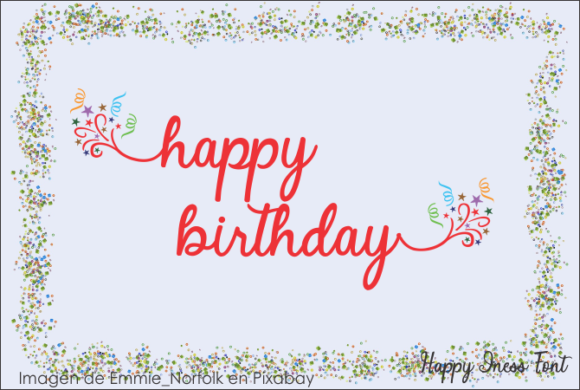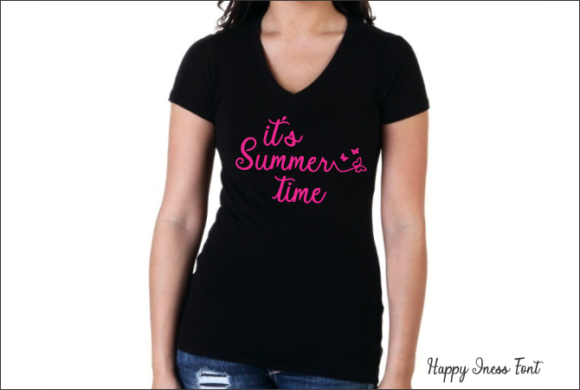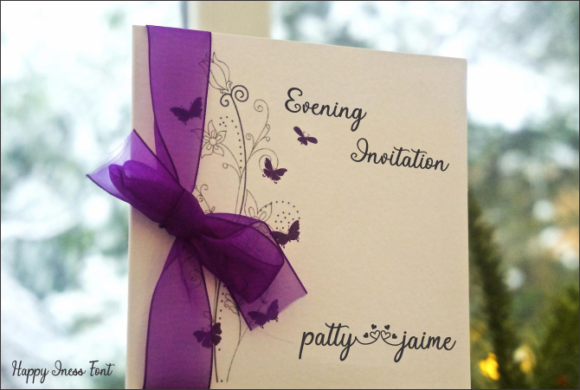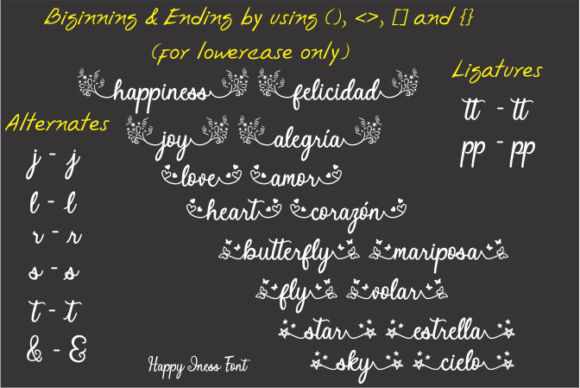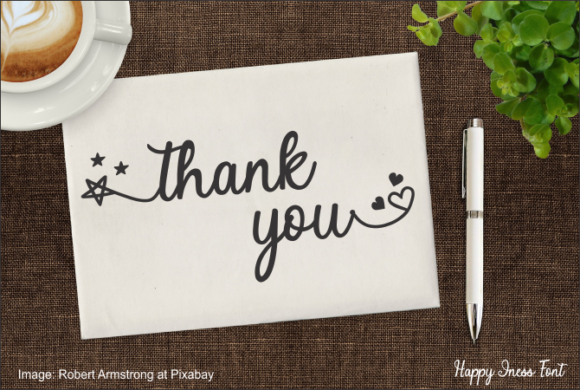
Introduction to Happy Iness Font
As you sit down to start a new creative project, the blank page staring back at you can be intimidating. But then, something sparks – a unique idea, a vibrant color palette, or a beautiful font that brings it all together. For many designers, finding the perfect font can be the difference between a good design and a great one. That’s where the Happy Iness Font comes in – a delicate, elegant, and flowing handwritten font that adds a touch of sophistication to any project.
With its beautiful and well-balanced characters, the Happy Iness Font is a valuable resource for designers looking to elevate their work. Whether you’re working on a free download, a high-end marketing campaign, or a personal creative project, this font is sure to impress. Its versatility makes it a great addition to any design arsenal, and its transparent background allows for seamless integration into any design.
Key Features of Happy Iness Font
- High-quality design: The Happy Iness Font is a unique and creative design resource, perfect for any project that requires a touch of elegance and sophistication.
- Transparent background: The Happy Iness Font features a transparent background, allowing for seamless integration with any design element or background.
- High-resolution design: The Happy Iness Font is designed at a high resolution, ensuring crisp and clear typography, even when scaled up or down.
- Unique characteristics: The font’s unique characteristics, including its custom letterforms and subtle flourishes, make it an excellent choice for designers looking to add a touch of personality to their creative projects.
- Perfect for design projects: The Happy Iness Font is ideal for use in design projects, such as logos, branding, and marketing materials, where a high-quality and unique font is essential.
Honest Review: Happy Iness Font
I recently had the chance to try out the Happy Iness Font for a creative project and I must say, it’s been a great addition to my design resource library. This font is a free download, which is always a plus when working on a budget.
- ✨ High-quality design: The Happy Iness Font is beautifully crafted with a clean and modern aesthetic that’s perfect for any project.
- ✨ Transparent background: The font’s transparent background makes it easy to place it over any image or color without worrying about a distracting background.
- ✨ Versatile: I’ve used the Happy Iness Font for a variety of projects, from social media graphics to web design, and it always looks great.
While the Happy Iness Font is a great addition to my design library, there are a few limitations to keep in mind:
- ⚠️ Limited font weights: The font only comes in a few weights, which can make it difficult to create a cohesive look if you need to use multiple font weights in a project.
- ⚠️ No italics: Unfortunately, the Happy Iness Font doesn’t come with italics, which can be a problem if you need to create a title or heading with an italic font.
Overall, I’m very happy with the Happy Iness Font and I would definitely recommend it to designers looking for a high-quality, free font for their creative projects.
How to Use Happy Iness Font
Tips for Getting the Most Out of Happy Iness Font
Use the Happy Iness Font on a transparent background to create a clean and modern design. Experiment with different font sizes and colors to create a unique look. Use it in combination with other design elements, such as graphics and images, to create a visually appealing design.
Common Use Cases for Happy Iness Font
Does the Happy Iness Font have a transparent background?
Yes, the Happy Iness Font has a transparent background, making it easy to use in designs with complex backgrounds or compositions. The font’s transparent background allows the underlying design to show through, giving you more flexibility and creative control in your project.